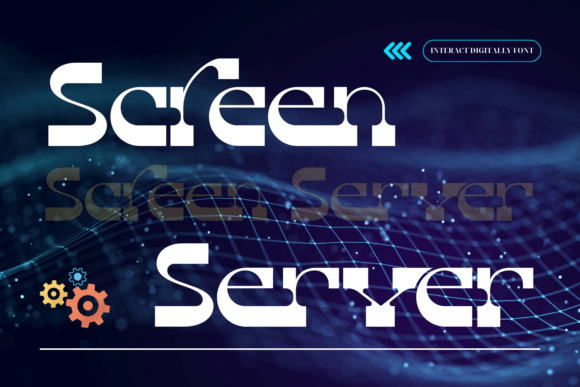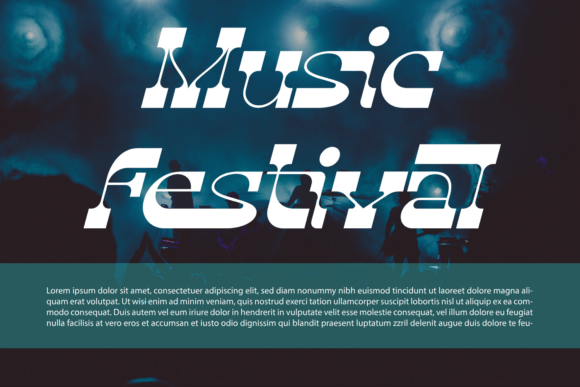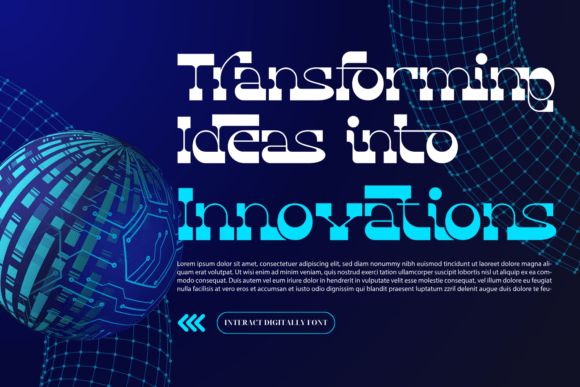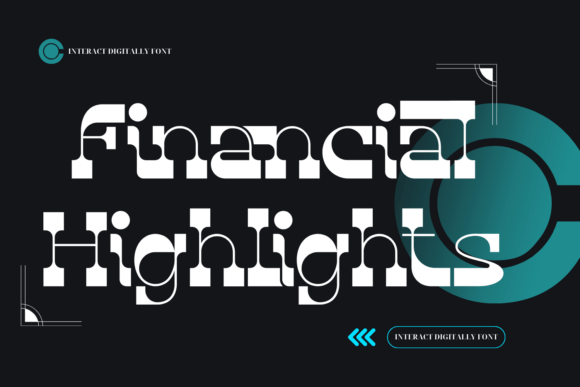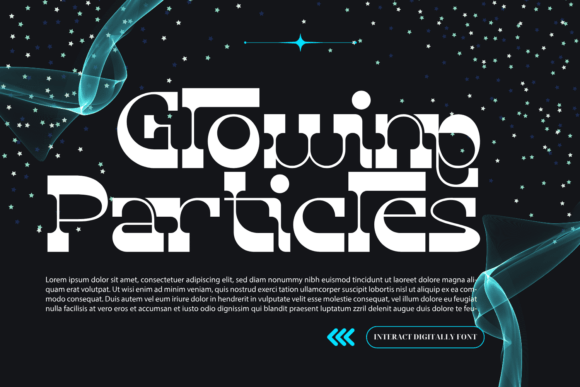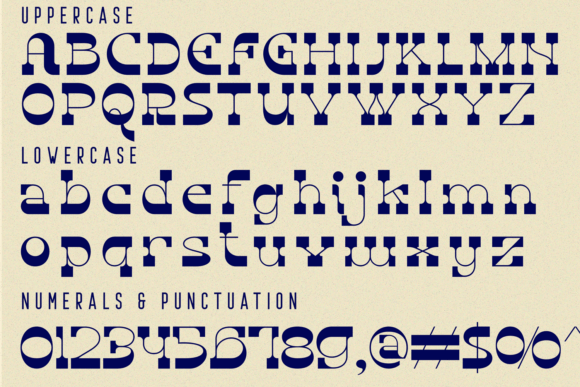
Introduction to Interact Digitally Font
Interact Digitally Font is a retro vintage slab serif font family that brings nostalgic charm and bold character to any design.
This font style combines the solid, thick serifs typical of slab fonts with retro-inspired details from past decades Featuring intricate ligatures and unique, this font beautifully blends multiple letters into distinctive, seamless shapes, giving your typography a one-of-a-kind, artistic flair.
Key Features of Interact Digitally Font